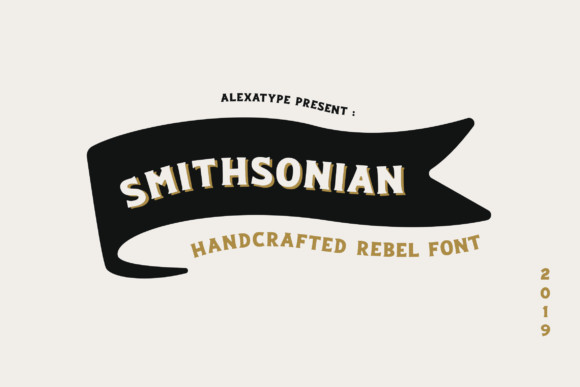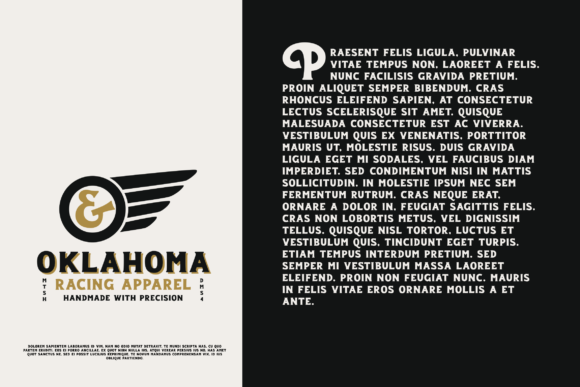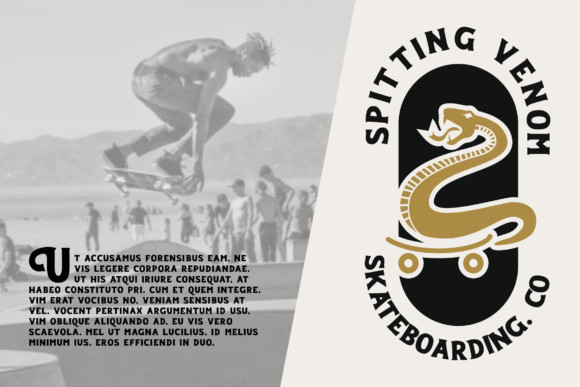
Smithsonian Font
Smithsonian is a bold and authentic display font. Its friendly feel makes this font incredibly versatile, fitting a wide range of contexts. Add it to your creative ideas and notice how it makes them stand out!